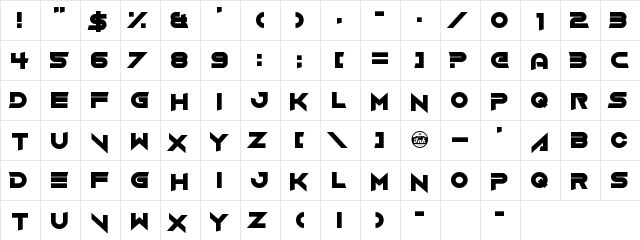
Vermin Vibes 4 Regular
Design Context for Vermin Vibes 4 Typeface
Vermin Vibes 4 offers clean, dependable letterforms without strong stylistic allegiance, making it a practical choice for designers who need flexibility.